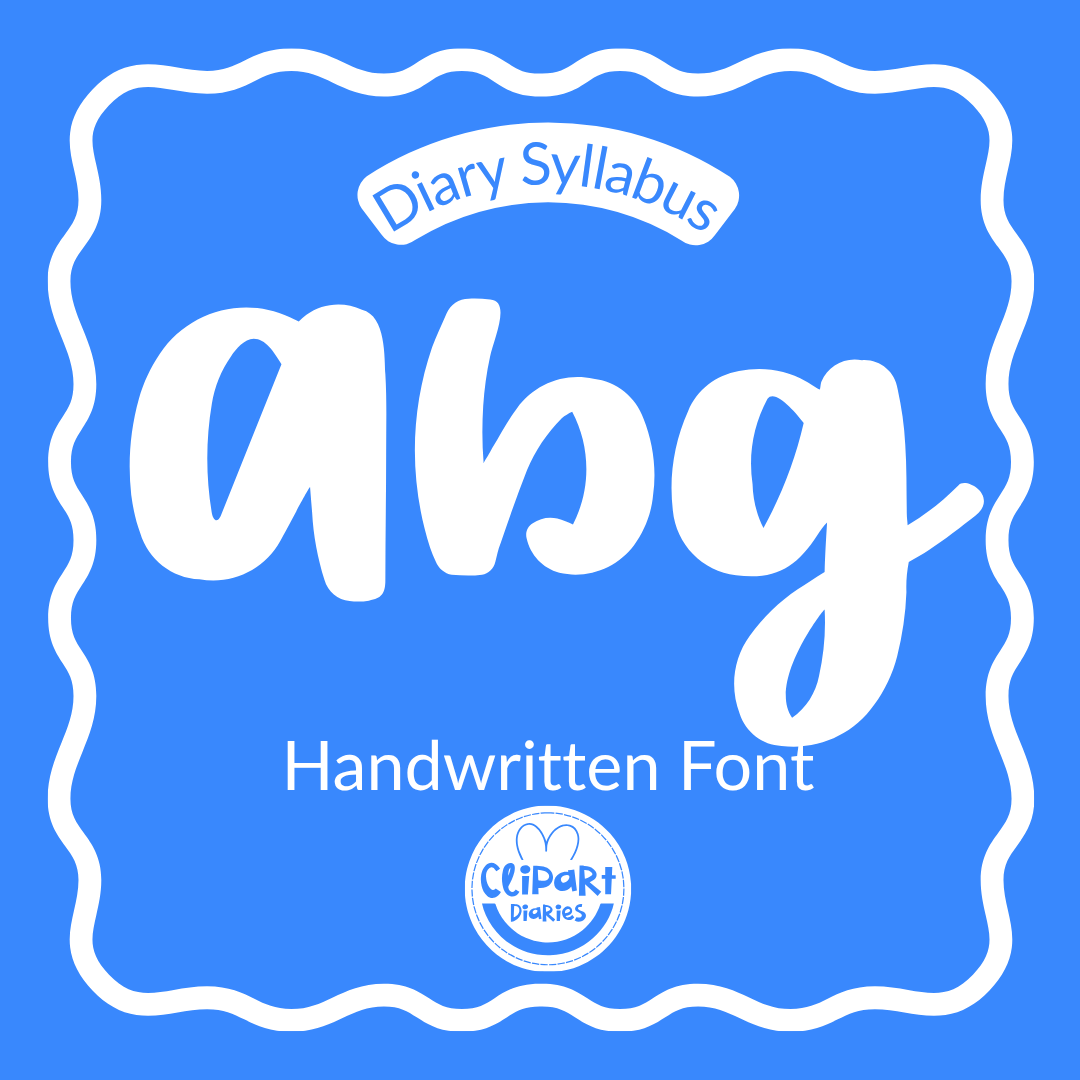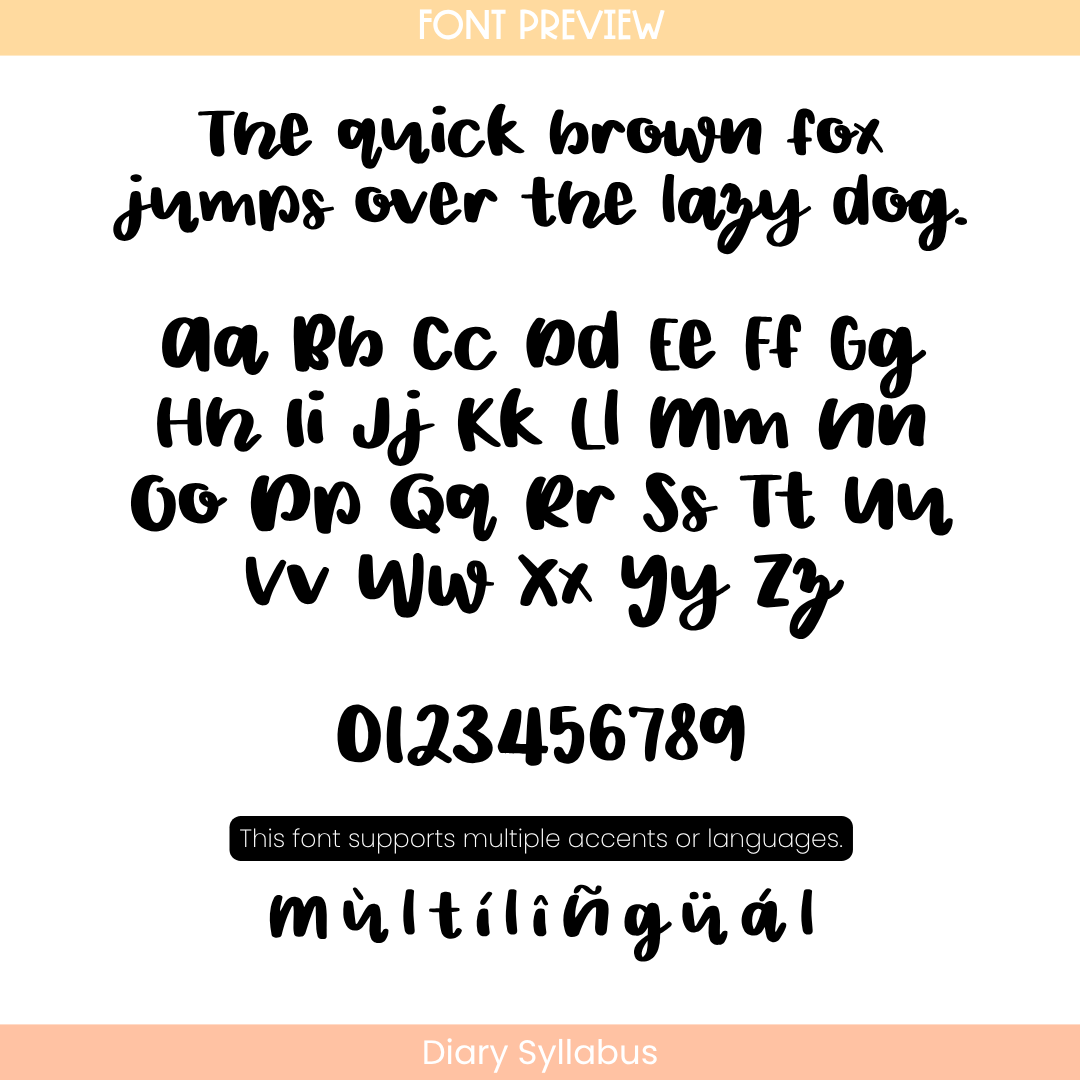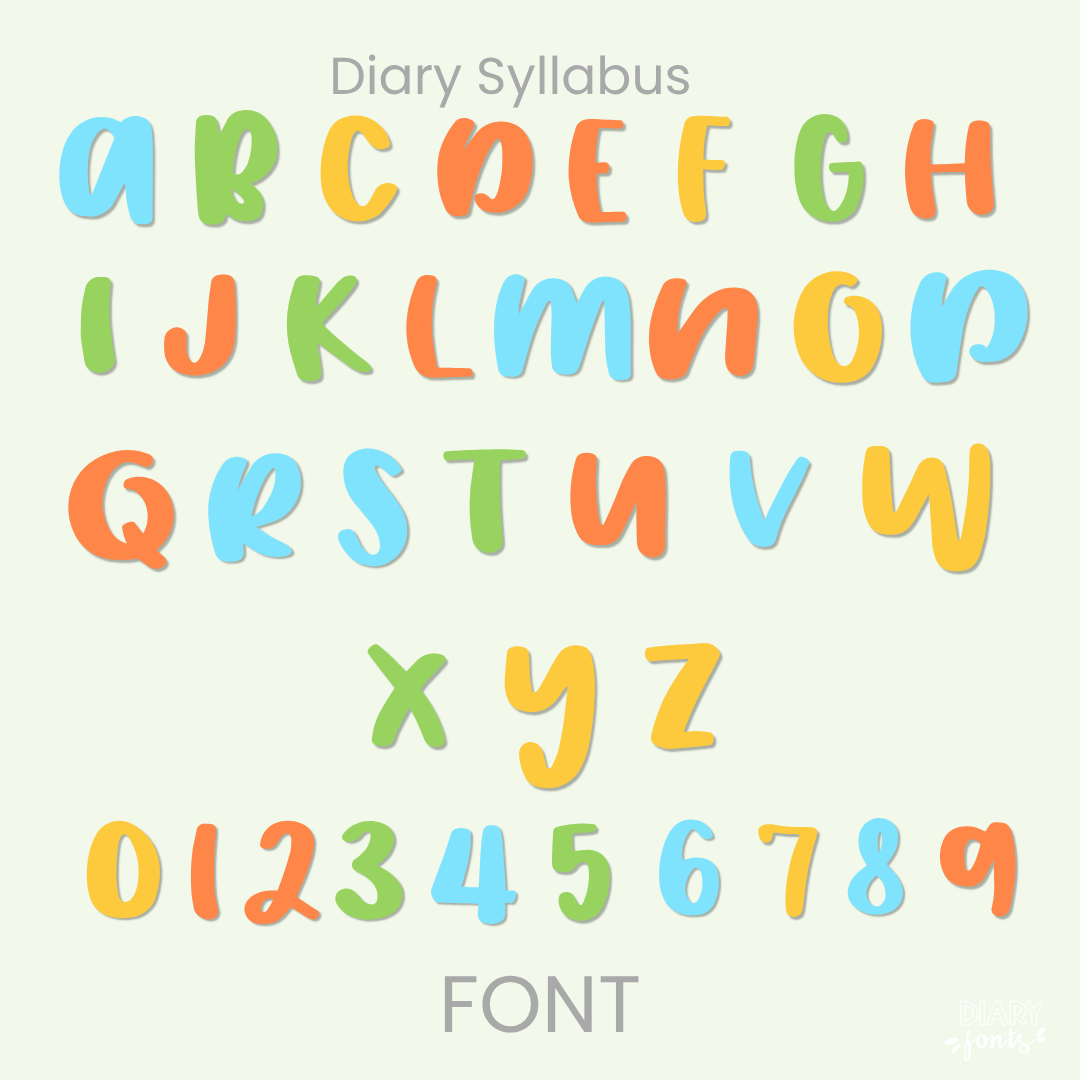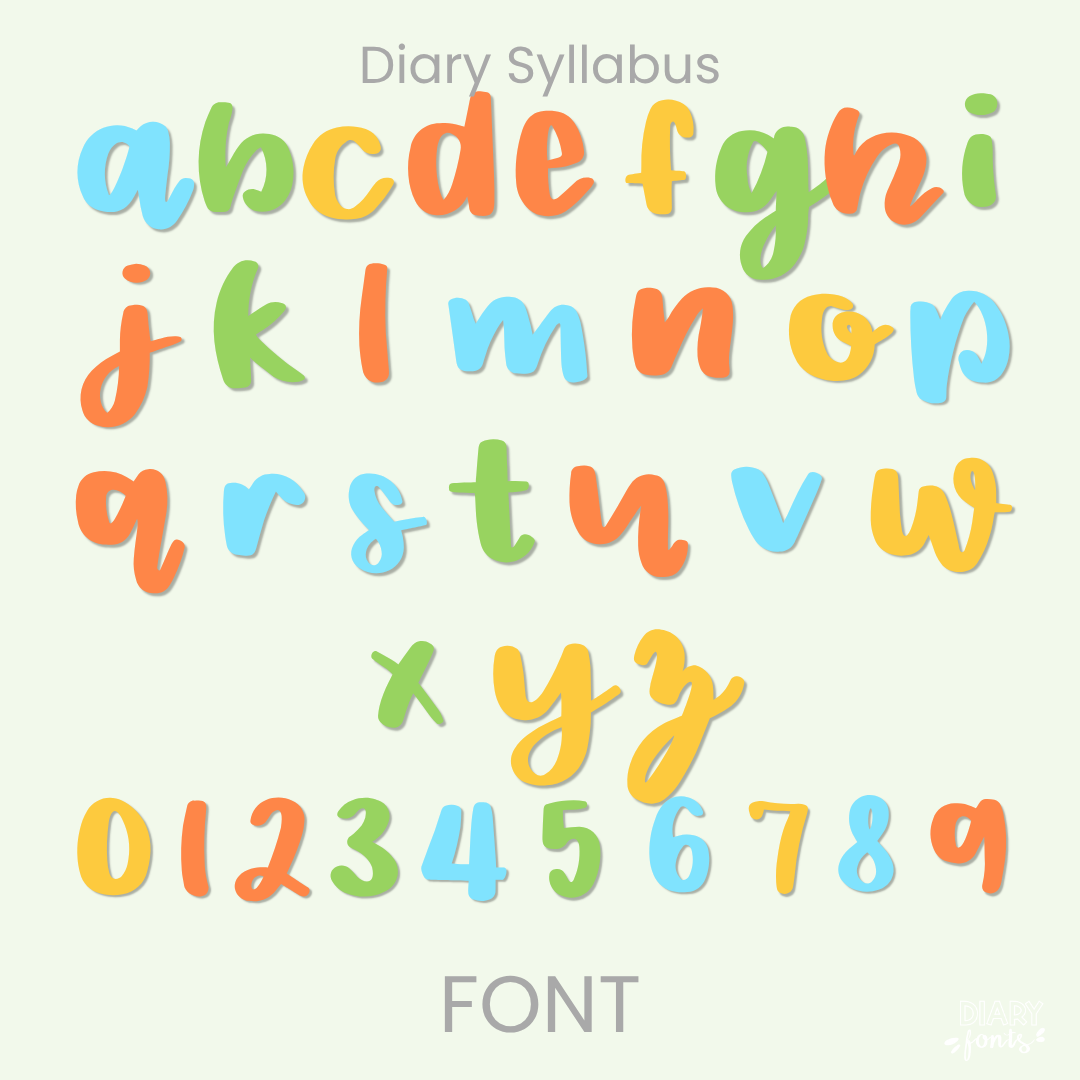
The Diary Syllabus font style features a playful and chunky aesthetic characterized by a hand-drawn quality and organic, rounded edges. The strokes are thick and bold, providing the high visibility necessary for educational materials, while the informal letterforms offer a casual, “hand-crafted” charm suitable for classroom resources.
Diary Syllabus – Handwritten Font
Elevate your classroom resources with the Diary Syllabus font, featuring a playful and chunky aesthetic. This hand-drawn typeface offers organic, rounded edges and thick, bold strokes for high visibility in educational materials. Perfect for teachers, these informal letterforms provide a casual, hand-crafted charm ideal for decorative classroom displays and primary curriculum design.